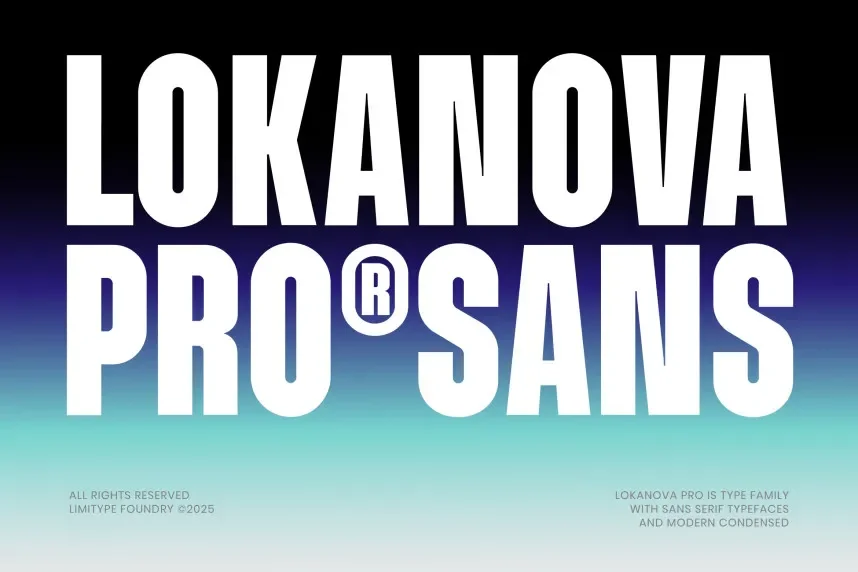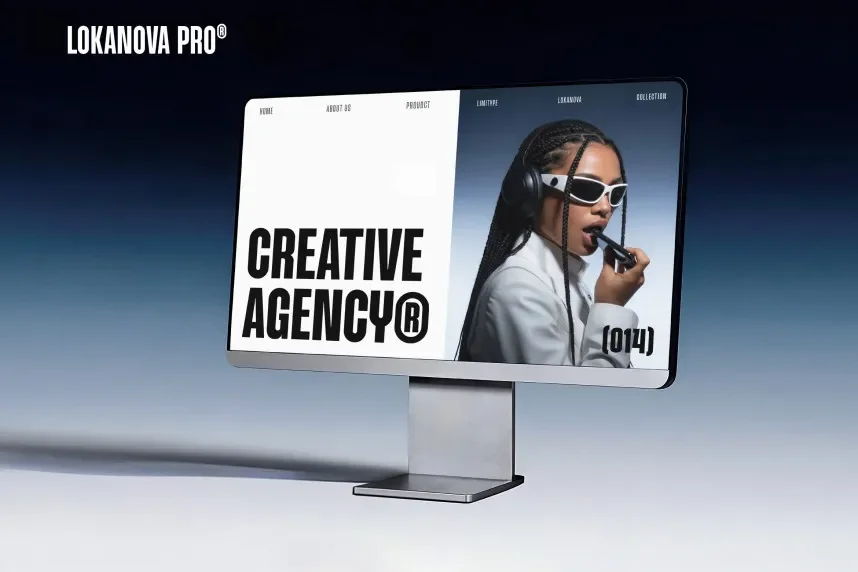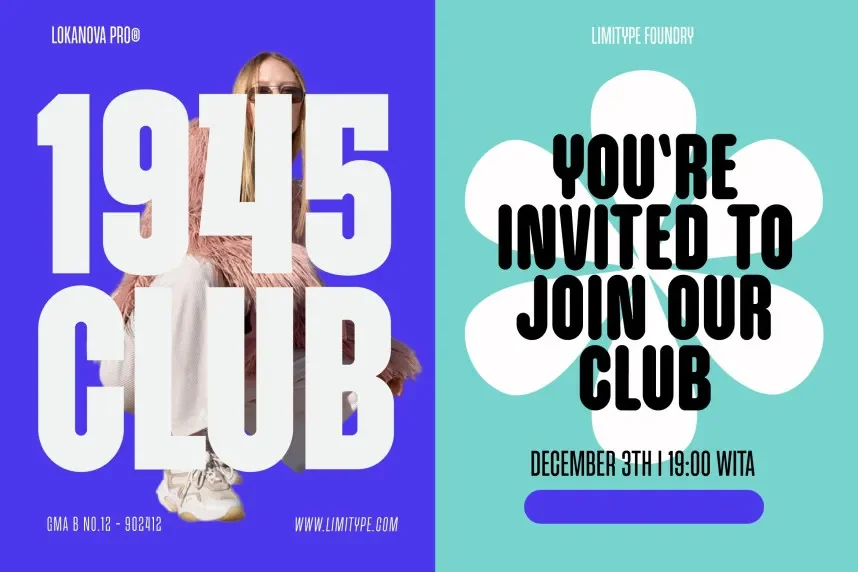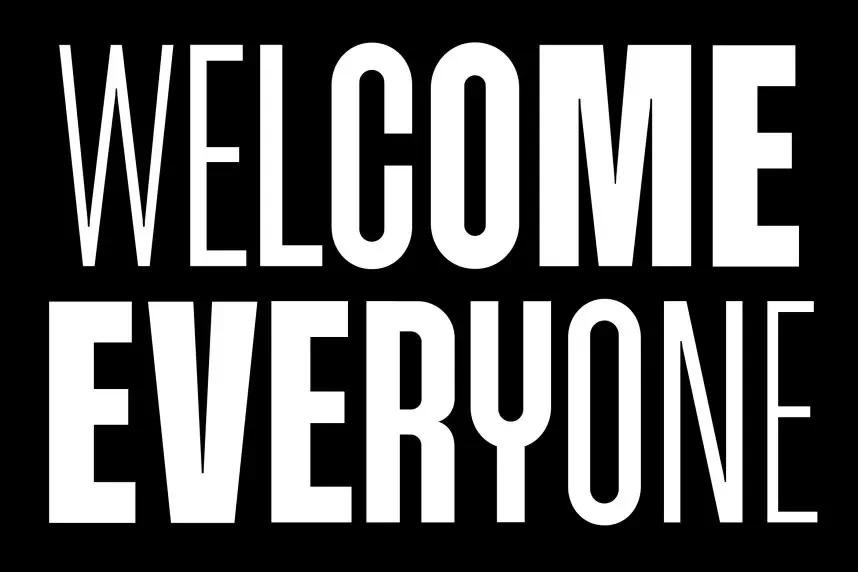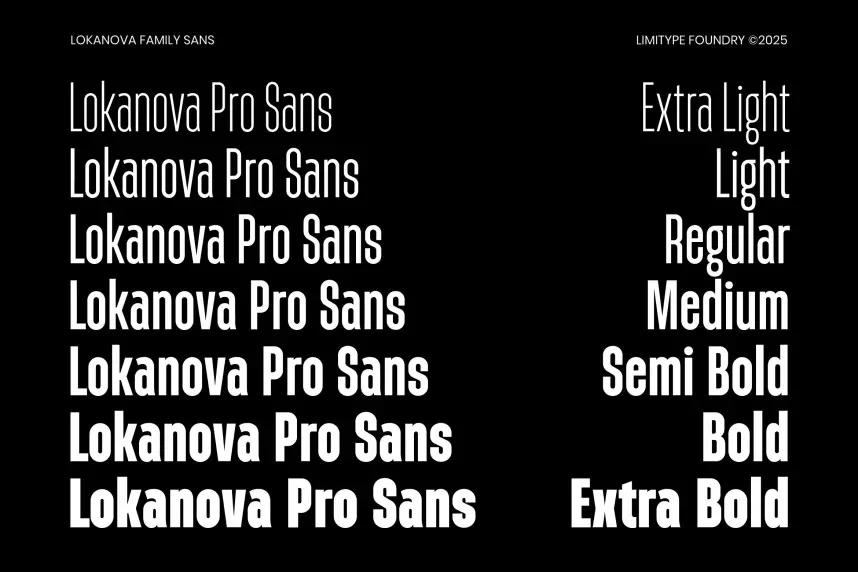
Lokanova Pro Font Family solves layout consistency issues in editorial and branding projects that demand clarity and controlled spacing. Designers often use it when content must remain readable across print and digital formats.
Lokanova Pro is a modern sans-serif font family with balanced proportions and moderate stroke contrast. The letterforms emphasize clean curves, stable x-height, and predictable rhythm. These characteristics help text remain legible in headlines, subheadings, and medium-length paragraphs.